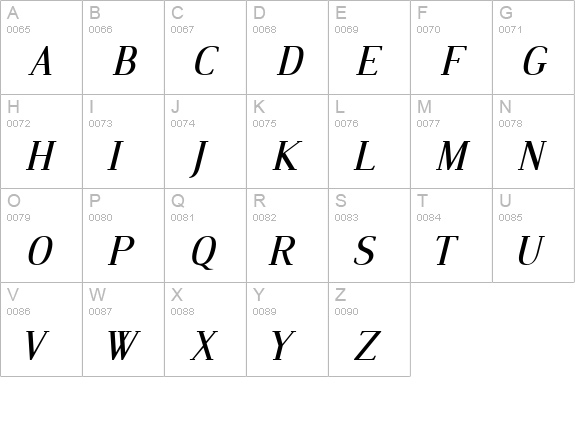
Dustismo Roman Italic is a distinctive, italic variant in the Dustismo typeface family \xE2\x80\x94 well suited to design and typography projects.
The Dustismo Roman Italic font exudes elegance and sophistication with its graceful and slanted letterforms. Inspired by classic Roman typefaces, this italic variation adds a touch of flair and fluidity to any design project. The subtle curves and delicate strokes of Dustismo Roman Italic create a sense of refinement and style, making it perfect for conveying a sense of sophistication and charm. This font is not only visually appealing but also versatile, suitable for a wide range of applications including branding, editorial design, and more. Whether used for headlines or body text, Dustismo Roman Italic adds a touch of class to any project. Best of all, Dustismo Roman Italic is freely available for download at FontsMarket.com. This means you can easily access this beautiful font and incorporate it into your designs without any cost. Don't miss out on the opportunity to enhance your projects with the timeless elegance of Dustismo Roman Italic.